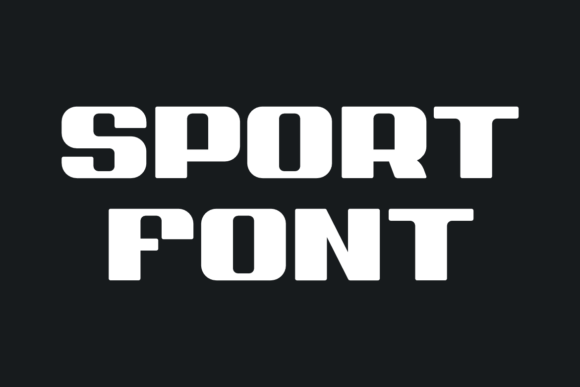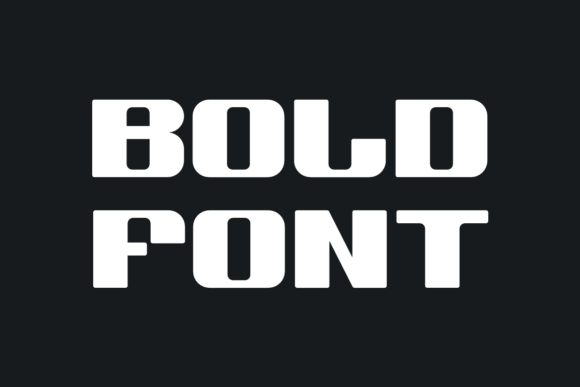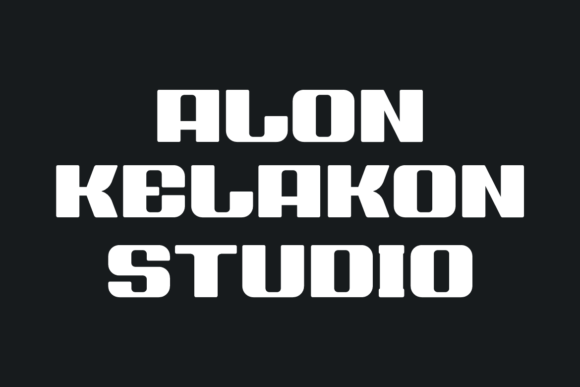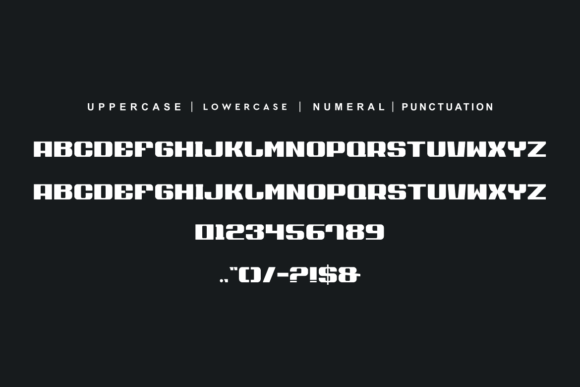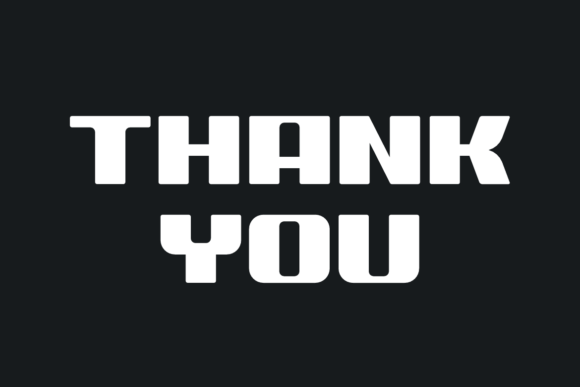
Introduction to King Rexon Font
Have you ever been stuck on a creative project, searching for the perfect font to elevate your design and make it truly stand out? We’ve all been there. I still remember the moment when I stumbled upon the King Rexon Font – it was like a breath of fresh air for my design project. Its elegant and modern sans serif style gave my work a clean and sophisticated look that I had been striving for.
The King Rexon Font is more than just a pretty face; it’s a valuable design resource for any creative project. With its minimalist vibe and high-quality aesthetic, this font is perfect for book covers, magazines, social media posts, invitations, and so much more. Whether you’re a seasoned designer or just starting out, the King Rexon Font is an excellent addition to your design arsenal.
Key Features of King Rexon Font
- Unique and stylish design, ideal for creative projects and designs that require a touch of royalty.
- Designed to be versatile and adaptable, the King Rexon Font is suitable for a wide range of creative applications, from logos and branding to typography and graphics.
Honest Review: King Rexon Font
I recently stumbled upon the King Rexon Font and was excited to give it a try in my next design project. As a designer, I’m always on the lookout for high-quality design resources that can help elevate my creative work.
- ✨ The font has a unique, bold design that can add a lot of character to any project.
- ⚠️ The font is a bit limited in terms of font sizes and styles, which may not be ideal for more complex design projects.
- ⚠️ The font may not be the best choice for projects that require a lot of subtlety and nuance.
Overall, I was impressed with the King Rexon Font and would definitely consider using it in my next design project. While it may have some limitations, it’s a great choice for designers who want to add some bold, eye-catching elements to their work.
The King Rexon Font is commonly used in a variety of design projects, including: